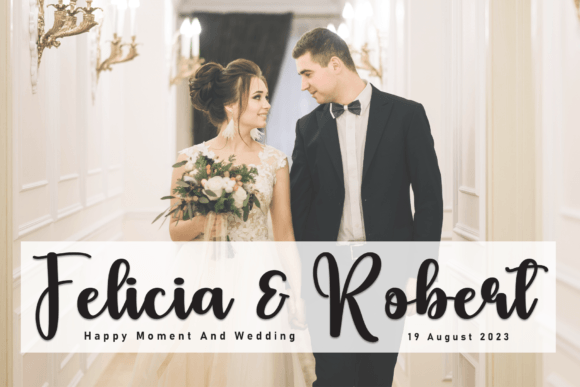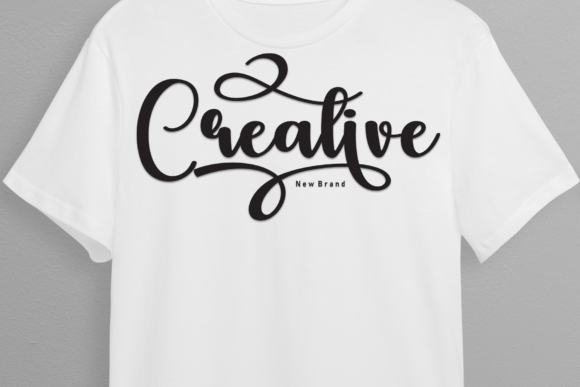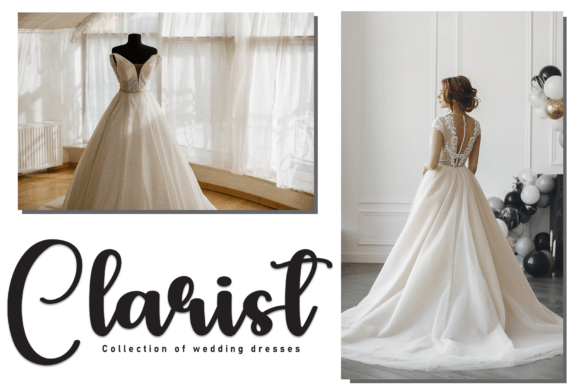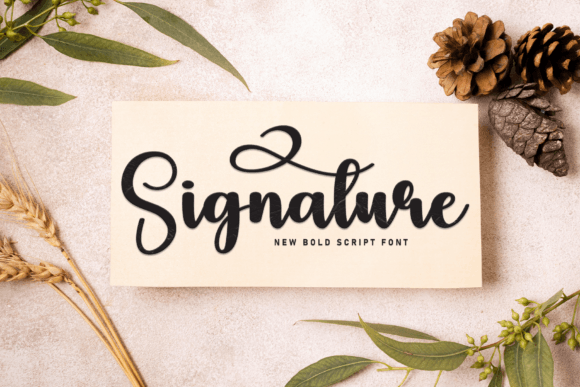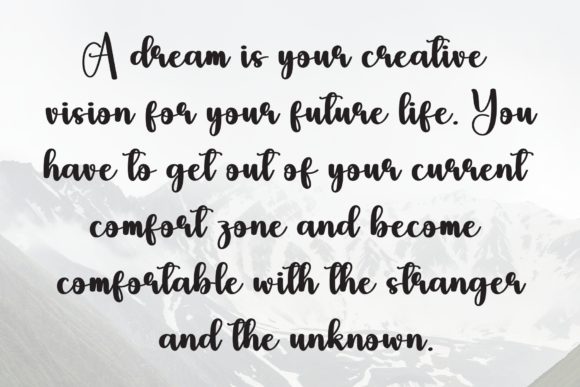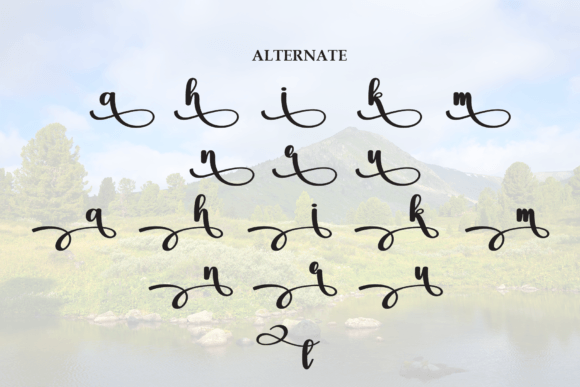
Introduction to Mountain Park Font
As a designer, have you ever stumbled upon that perfect font that elevates your creative project to the next level? For me, it was the moment I discovered the Mountain Park Font. Its unique blend of classic calligraphy and modern flair instantly captured my attention, and I knew I had to dive deeper.
With its high-quality design and versatility, the Mountain Park Font has become a valuable resource for designers seeking to add a touch of sophistication to their work. Whether you’re working on a branding project, creating a beautiful typography piece, or simply looking for a fresh design element, this font is sure to impress. And the best part? It’s available for free download, complete with a transparent background, making it easy to integrate into any project.
Key Features of Mountain Park Font
- Unique characteristics include a rustic, natural aesthetic, making it perfect for outdoor-themed designs and projects.
Honest Review: Mountain Park Font
I recently had the chance to work with the Mountain Park Font, and I must say it’s been a game-changer for my creative projects. The font is available for free download, making it an excellent design resource for anyone looking to elevate their work.
One of the standout features of this font is its high-quality, transparent background. This makes it incredibly easy to use, even for those who aren’t experienced designers. I’ve found it works particularly well for titles and headings, adding a touch of sophistication to any design.
- Great for titles and headings
- May not be suitable for text-heavy designs due to its bold nature
Overall, I’m really impressed with the Mountain Park Font. It’s a fantastic addition to any designer’s toolkit, and I’ve already seen some great results in my own creative projects. If you’re looking for a high-quality font to elevate your work, I’d definitely recommend giving this one a try.
The Mountain Park Font is a versatile design resource that can be used in a variety of projects. Some common use cases include:
- Posters and banners
- Websites and landing pages